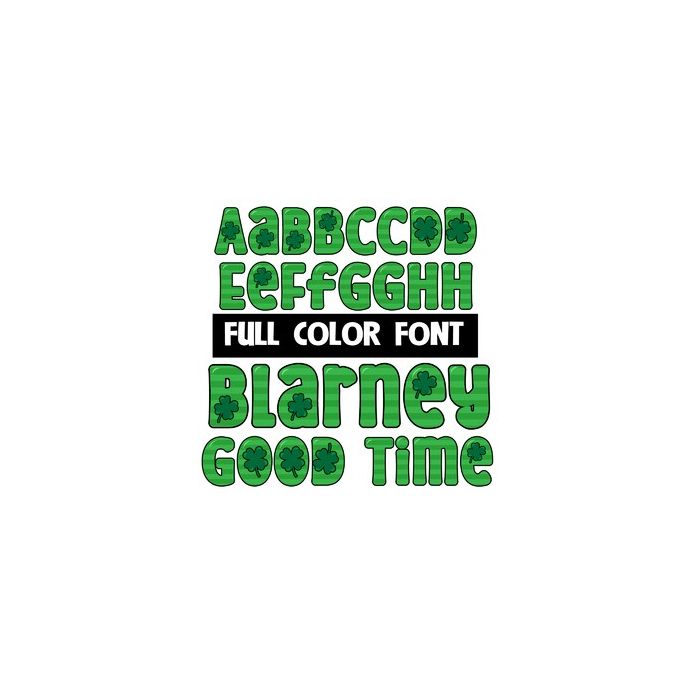
This full-color font features green striped lettering with occasional shamrocks. This font works best for titles, displays, posters and more. Please note color fonts will show as black in non compatible programs. This font type is compatible with Silhouette Studio.